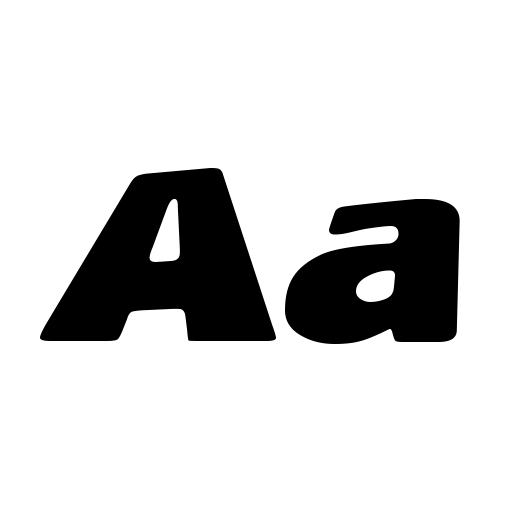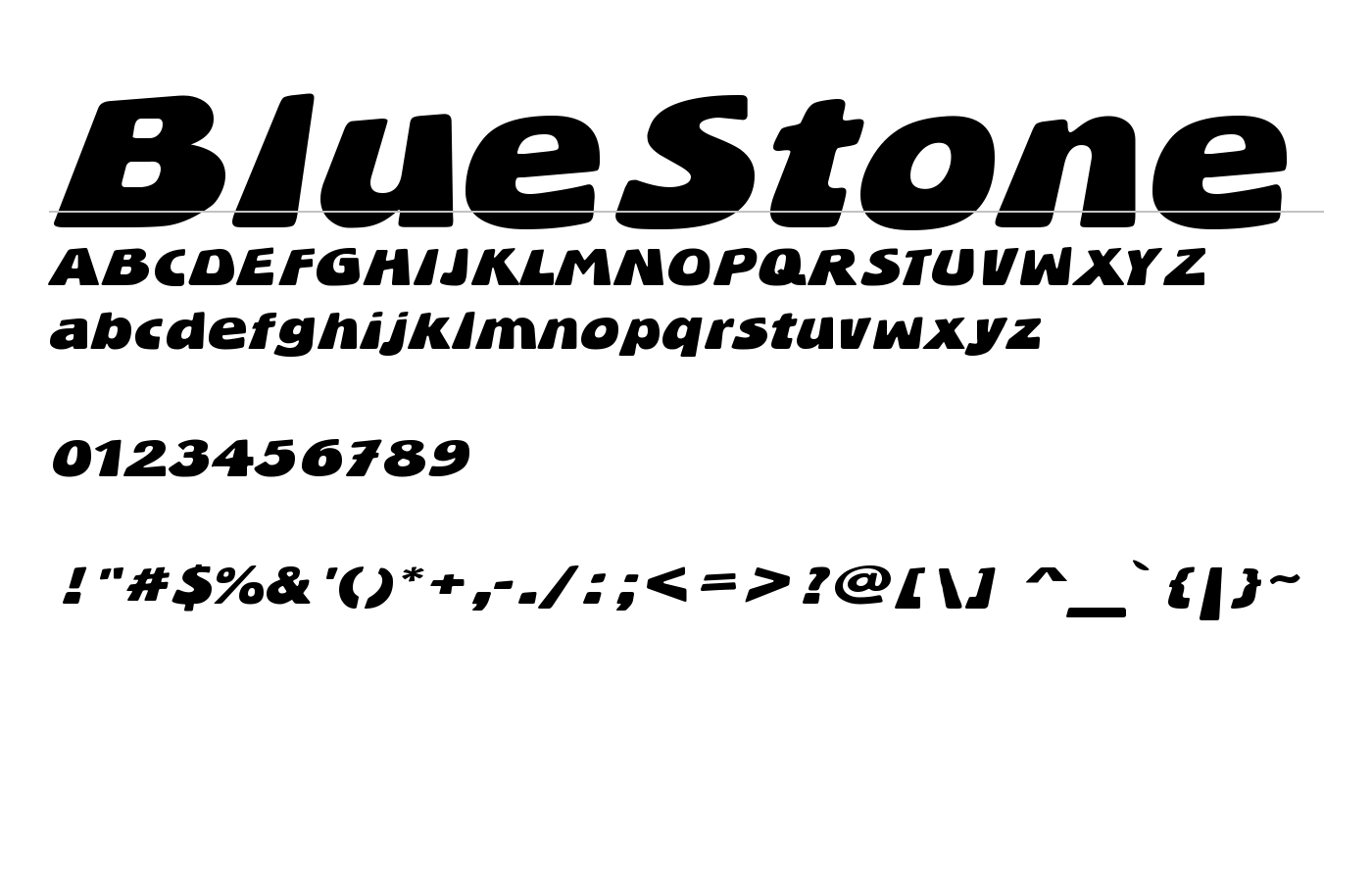
BlueStone is a bold, italic sans serif font with a strong, sturdy presence and slightly condensed letterforms that convey energy and motion. Its smooth, rounded edges and dynamic slant give it a modern and approachable feel, making it ideal for headlines, logos, and branding that aims to express confidence and friendliness. This font works well in sports, technology, and contemporary lifestyle projects where a bold yet inviting look is needed.
BlueStone Font